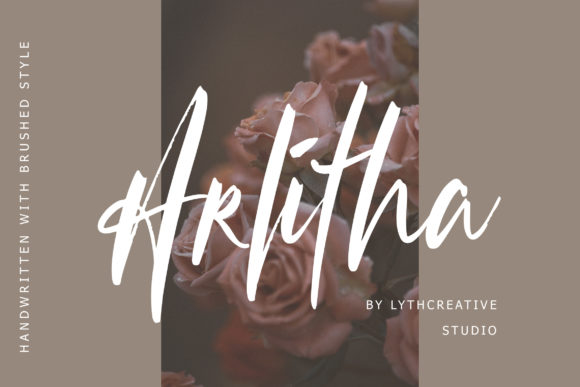
Step into the world of Arlitha, a brushed and sophisticated script font that captures the essence of urban, trendy, and modern design. This remarkable font, crafted by the talented lyanatha, features well-marked characters that effortlessly dance across your screen, creating a visual spectacle that will leave you captivated. Whether you're a seasoned designer or simply someone seeking to add a touch of elegance to your projects, Arlitha is the perfect choice for you.
Arlitha's strength lies in its versatility. It shines in a wide array of design applications, from logos and branding to website headers and social media graphics. Its bold, eye-catching strokes command attention, while its playful and dynamic style adds a touch of whimsy to your creations. Whether you're crafting a bold statement or conveying a sense of casual elegance, Arlitha has the power to transform your words into works of art.
Arlitha's true magic lies in its ability to elevate stacked text to new heights. Its meticulously crafted characters are designed to harmonize perfectly when layered upon one another, creating captivating effects that will make your words leap off the page. Whether you're designing eye-catching posters, stylish flyers, or engaging social media posts, Arlitha's stacked text capabilities will add an extra layer of depth and intrigue to your designs.
With Arlitha in your design arsenal, you'll be able to create captivating designs that capture attention and leave a lasting impression. Its bold personality and versatility make it a must-have for any designer looking to add a touch of urban sophistication to their work. Embrace the power of Arlitha and unlock a world of creative possibilities today!